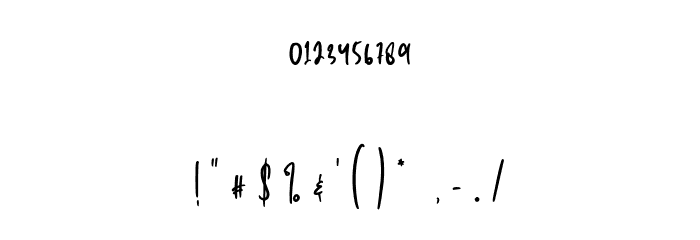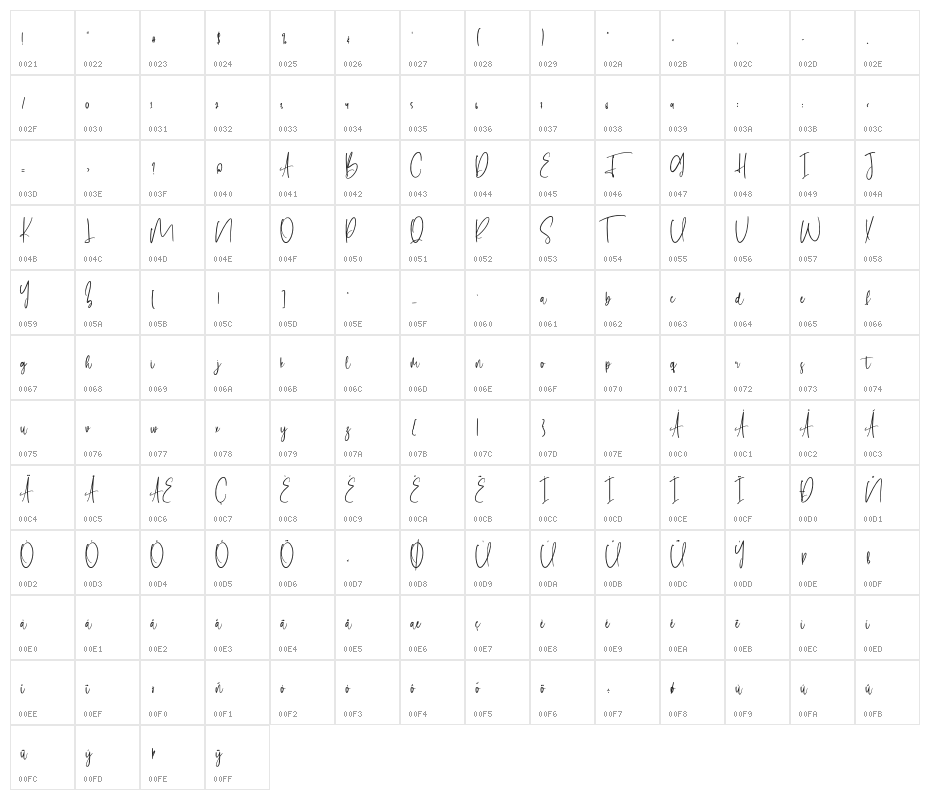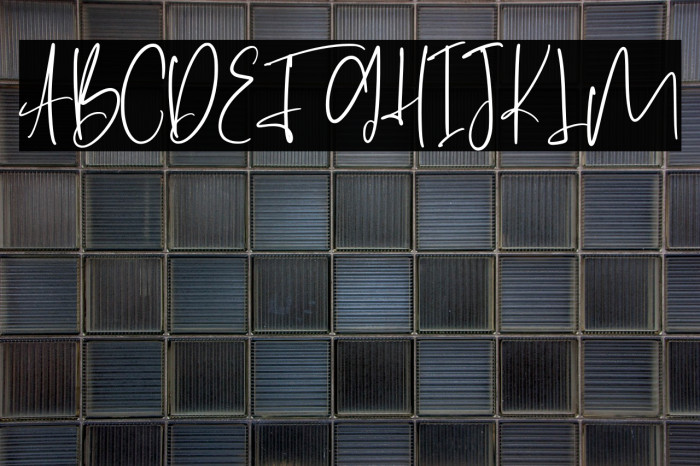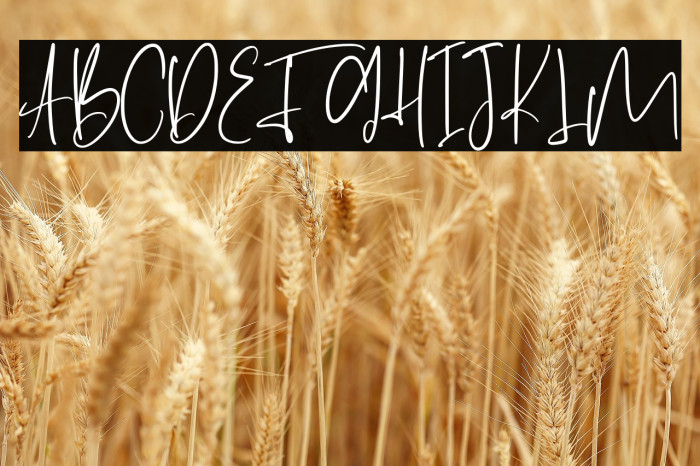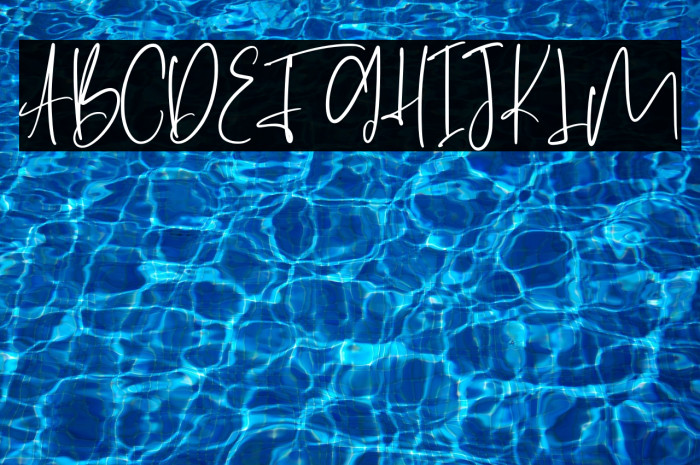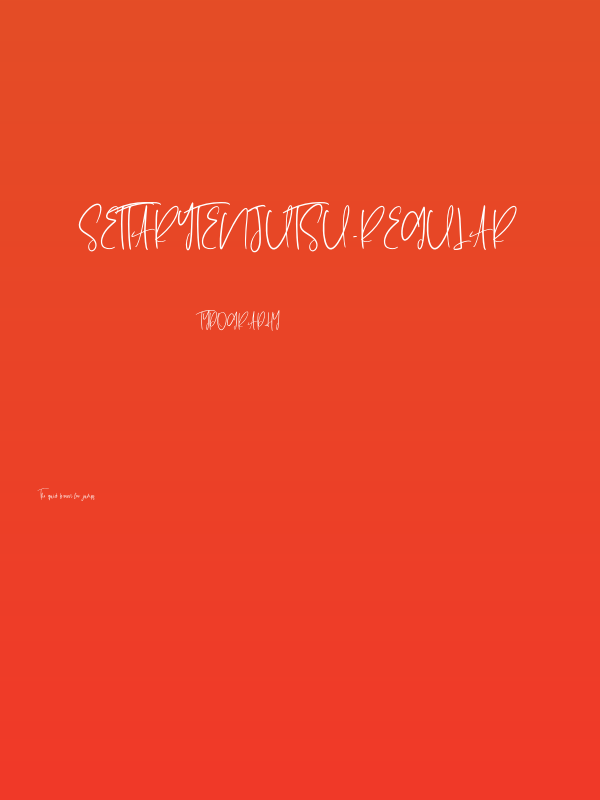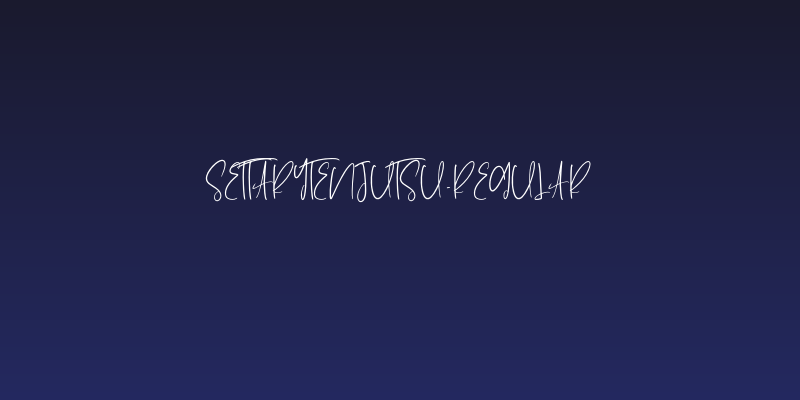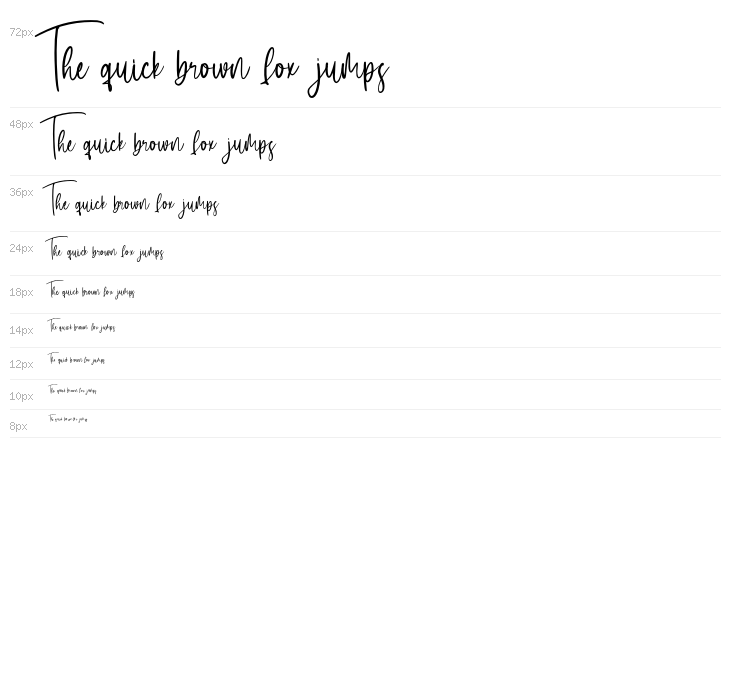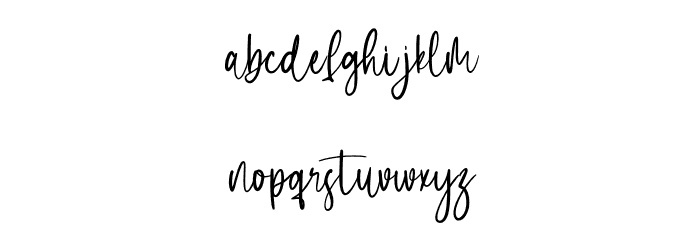
SettaryTenjutsu-Regular Font
SettaryTenjutsu-Regular Description
This font features a playful and whimsical handwritten style, characterized by its flowing and interconnected letterforms. The uppercase letters are tall and slender, with a slight slant that adds a dynamic feel. The lowercase letters maintain a consistent style, with smooth curves and loops that enhance its casual appearance. The numerals are clear and legible, matching the overall aesthetic. Special characters are integrated seamlessly, maintaining the font's cohesive look. This font exudes a sense of creativity and informality, making it suitable for projects that require a personal touch.
| Overall Style | Casual, Creative |
| Use Case | Logos, Invitations, Greeting Cards |
| Proposed Projects | Ideal for greeting cards, invitations, personal branding, and creative projects that require a personal touch. |